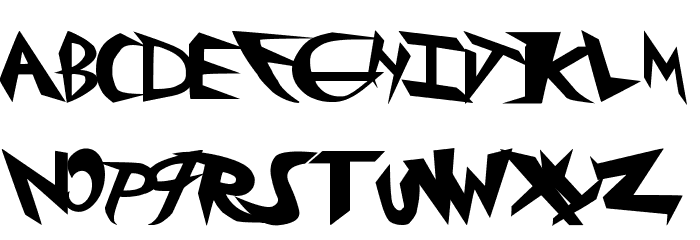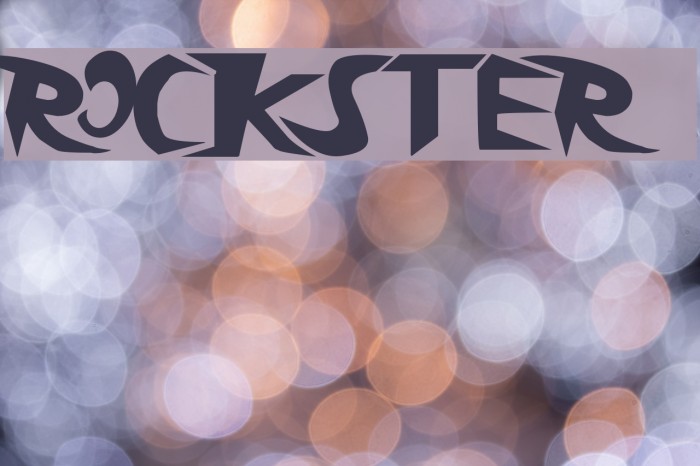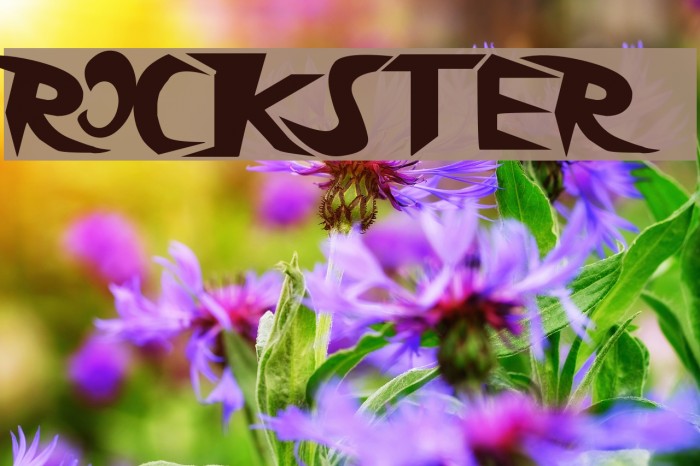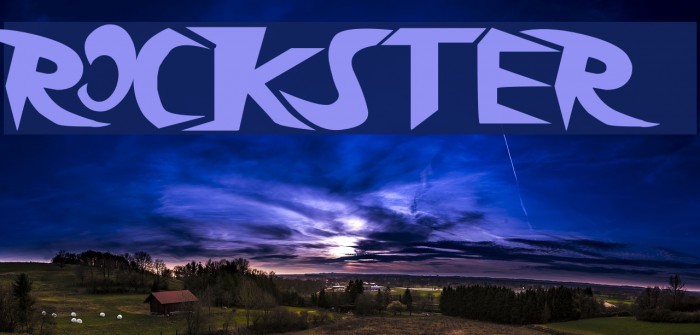
rockster Font
This font features a bold, edgy design with sharp, angular lines and a distinctly modern aesthetic. The characters are heavily stylized, with exaggerated strokes and unique geometric shapes that give it a rebellious, rock-inspired vibe. The uppercase and lowercase letters maintain a consistent style, emphasizing the font's cohesive and striking appearance. The numbers and special characters are equally bold, ensuring a uniform look across all text elements. This font is ideal for projects that require a strong visual impact and a sense of dynamism.
A bold, edgy font with sharp, angular lines and a modern, rebellious style.
- Proposed Projects: Ideal for music album covers, concert posters, edgy branding, and dynamic graphic designs.
- Character Spacing: Tight
- Overall Style: Modern, Edgy